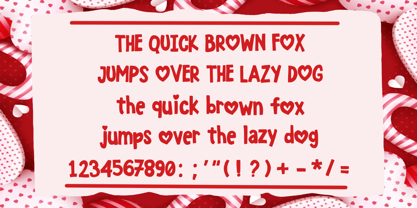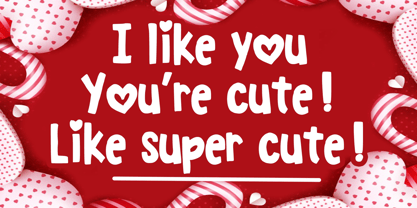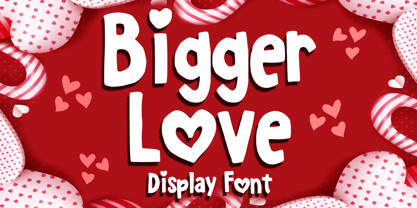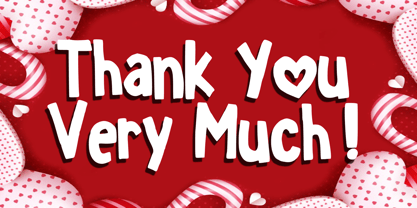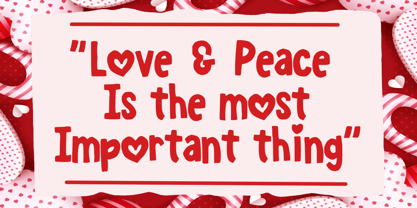
Bigger Love
by Mvmet
The Bigger Love Font Family was designed by Gabriel Valentinus and published by Mvmet. Bigger Love contains 1 styles.
Bigger Love is a fun and lovely handlettering font. You can use it for anything ranging from t-shirts, book designs, packaging and greeting cards to stickers and posters, or anything that needs a casual touch. If you want to use it for Christmas or Valentine or other lovely themed designs, it will be your perfect font to pick. Fall in love with its incredibly versatile style, and use it to create lovely designs!
Designers: Gabriel Valentinus
Publisher: Mvmet
Foundry: Mvmet
Design Owner: Mvmet